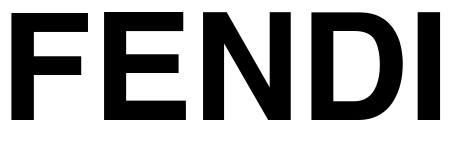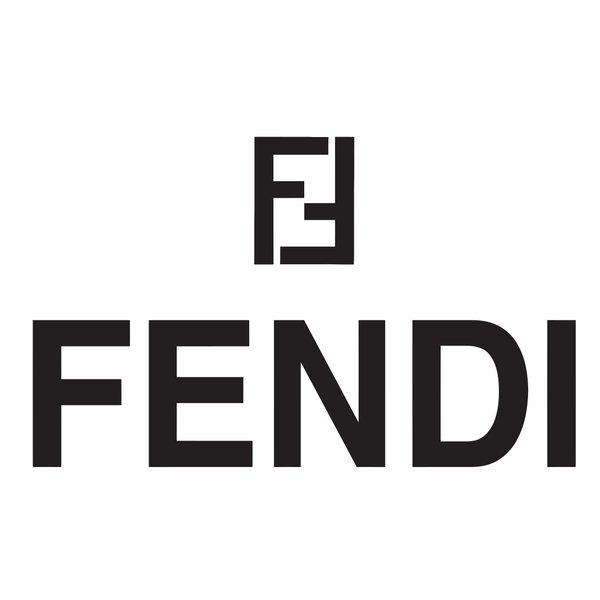
Fendi Font
ApparelFendi is an Italian luxury fashion brand founded in 1925 by Adele and Edoardo Fendi. It is known for its high-end clothing, fur and leather goods, accessories, and home furnishings.
Karl Lagerfeld designed the renowned "Zucca" or "FF" emblem in 1965. Max Miedinger created the logotype below in 1957 using a font that is quite similar to Helvetica Bold. Helvetica is a commercial font and you can view more details about it here.